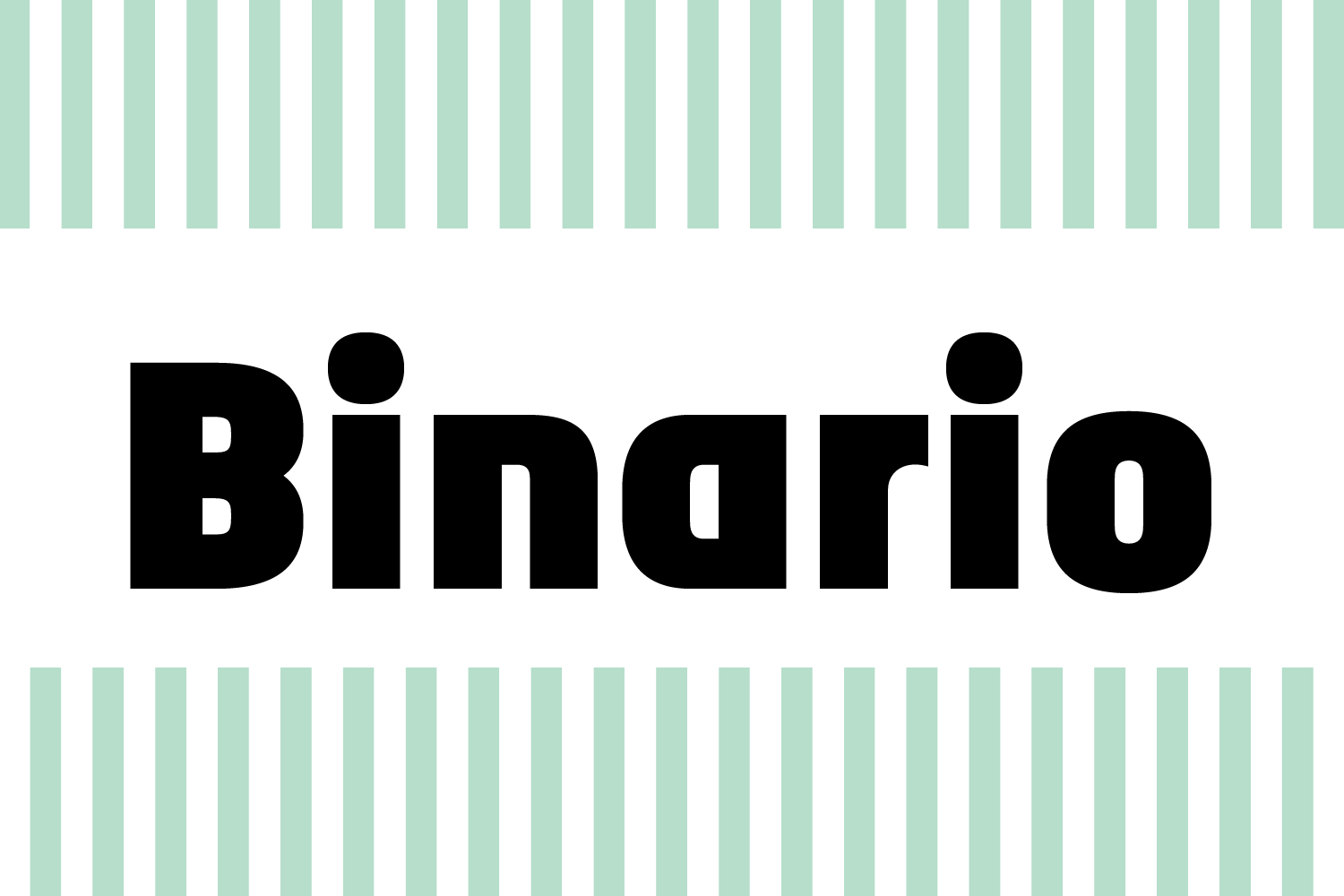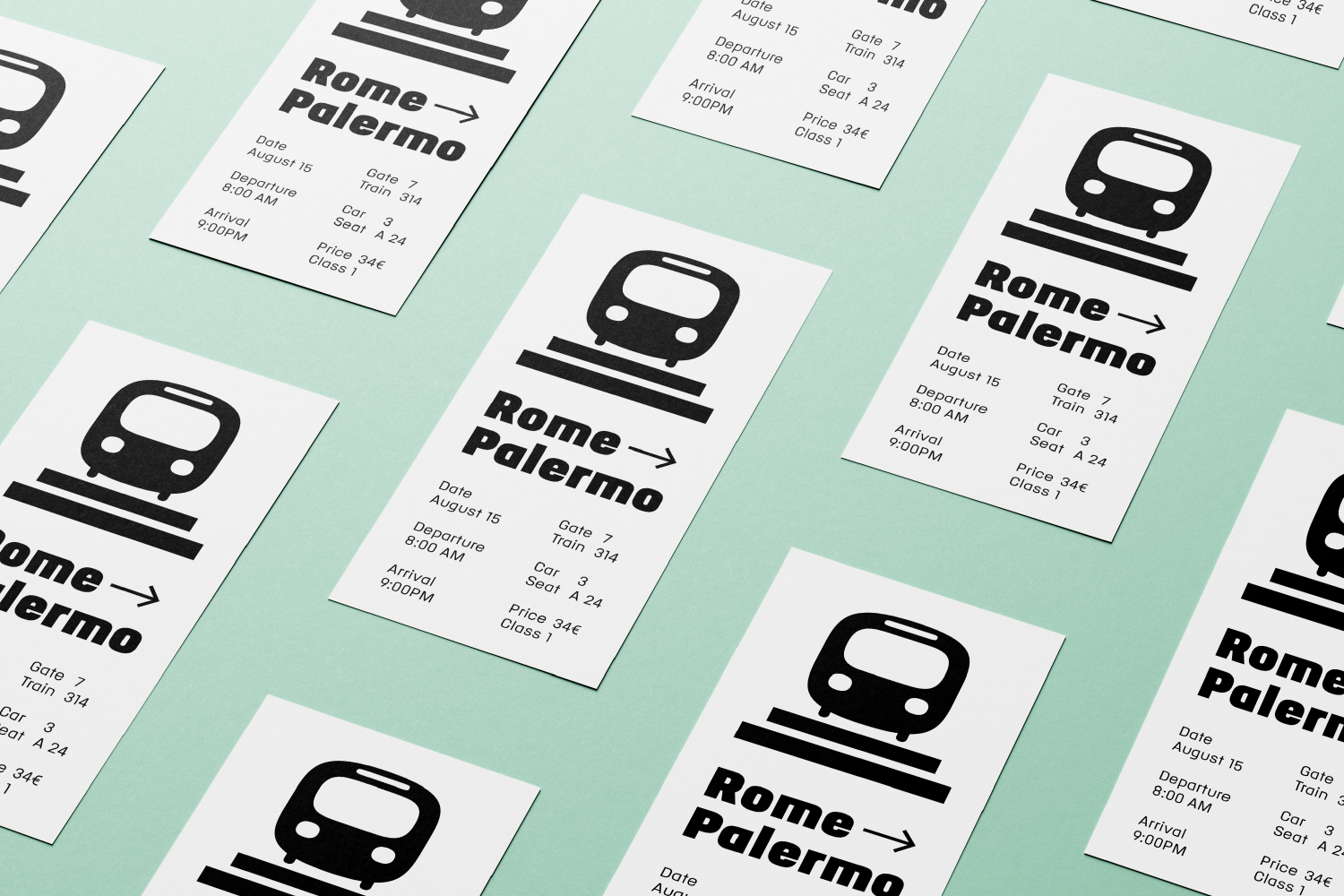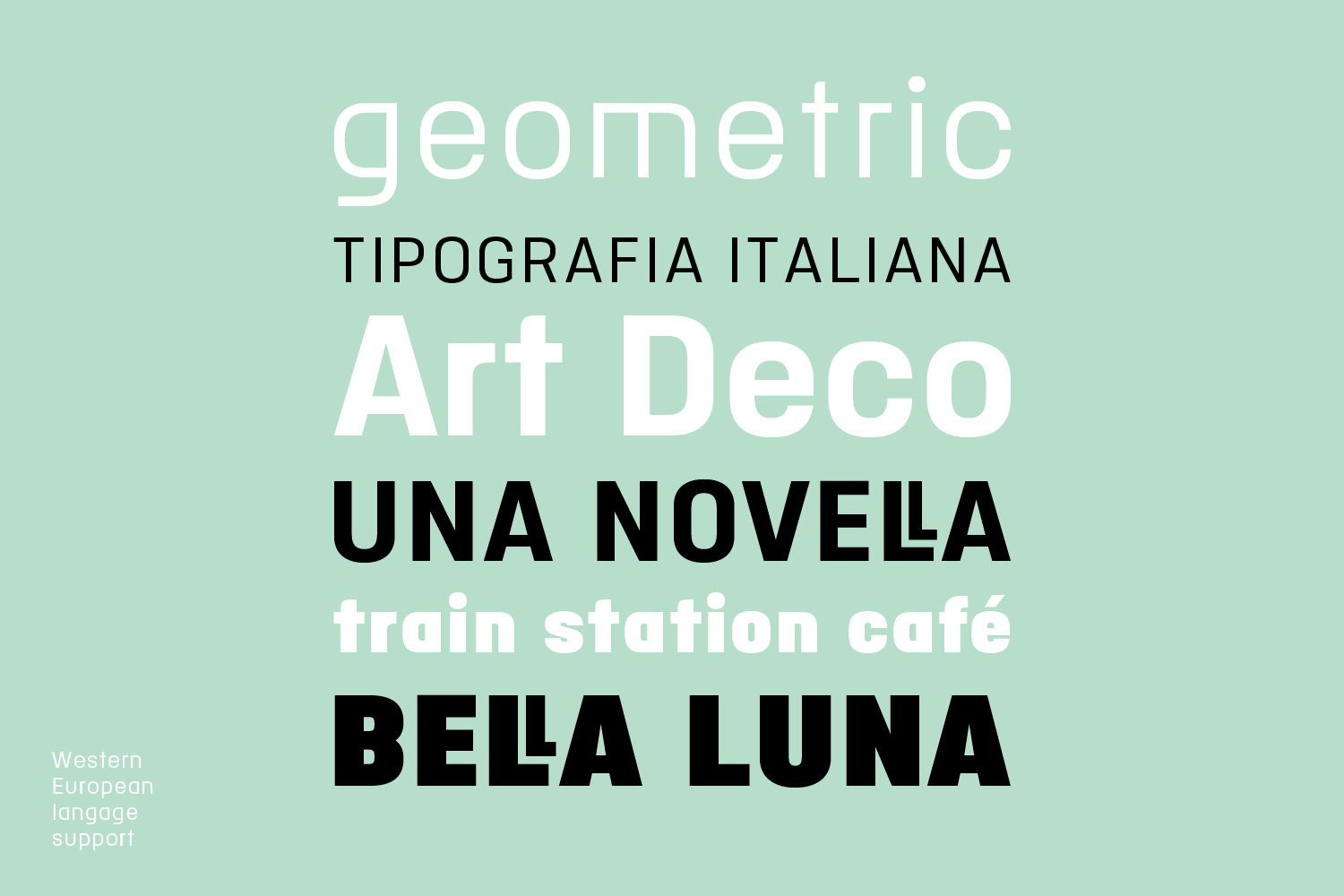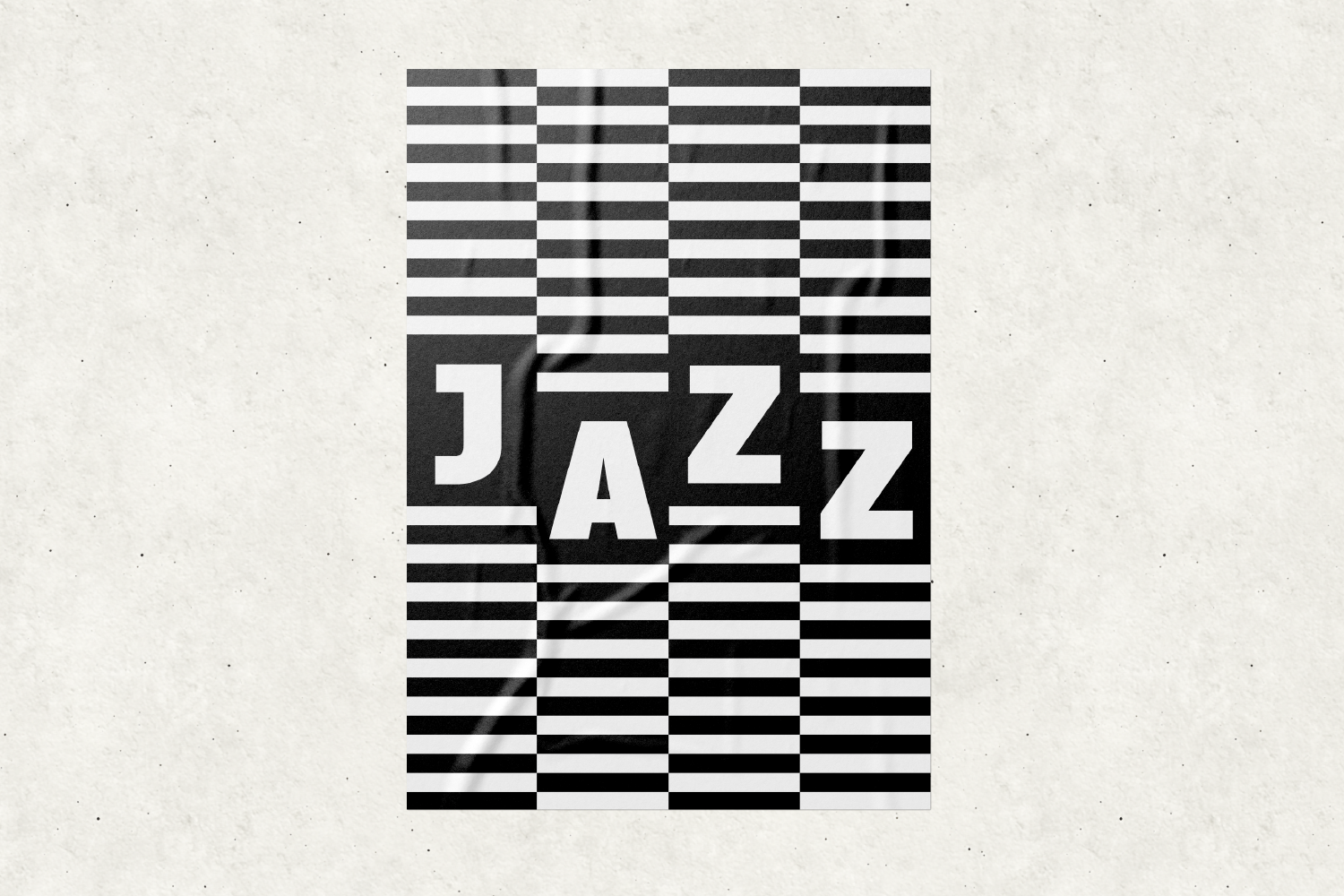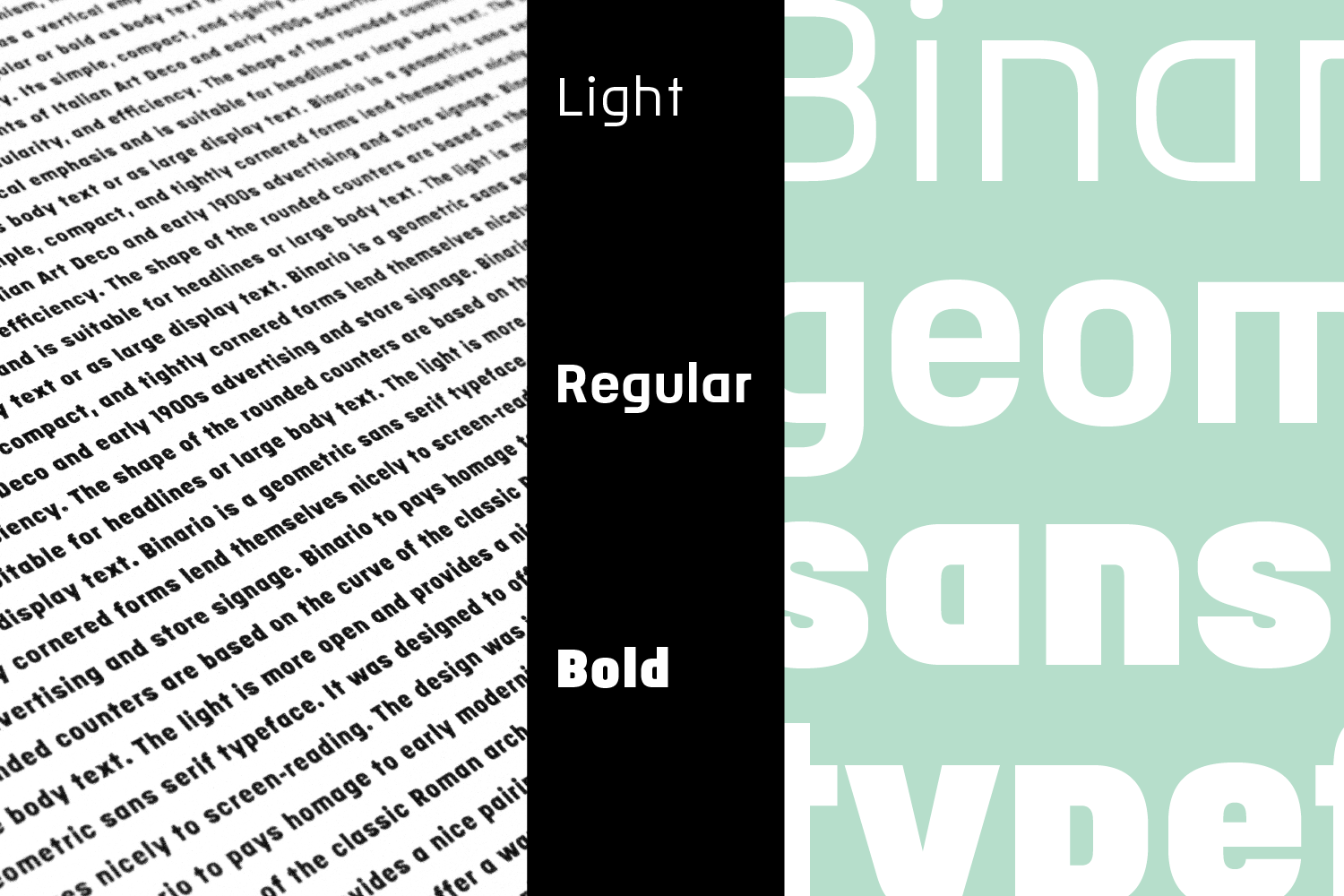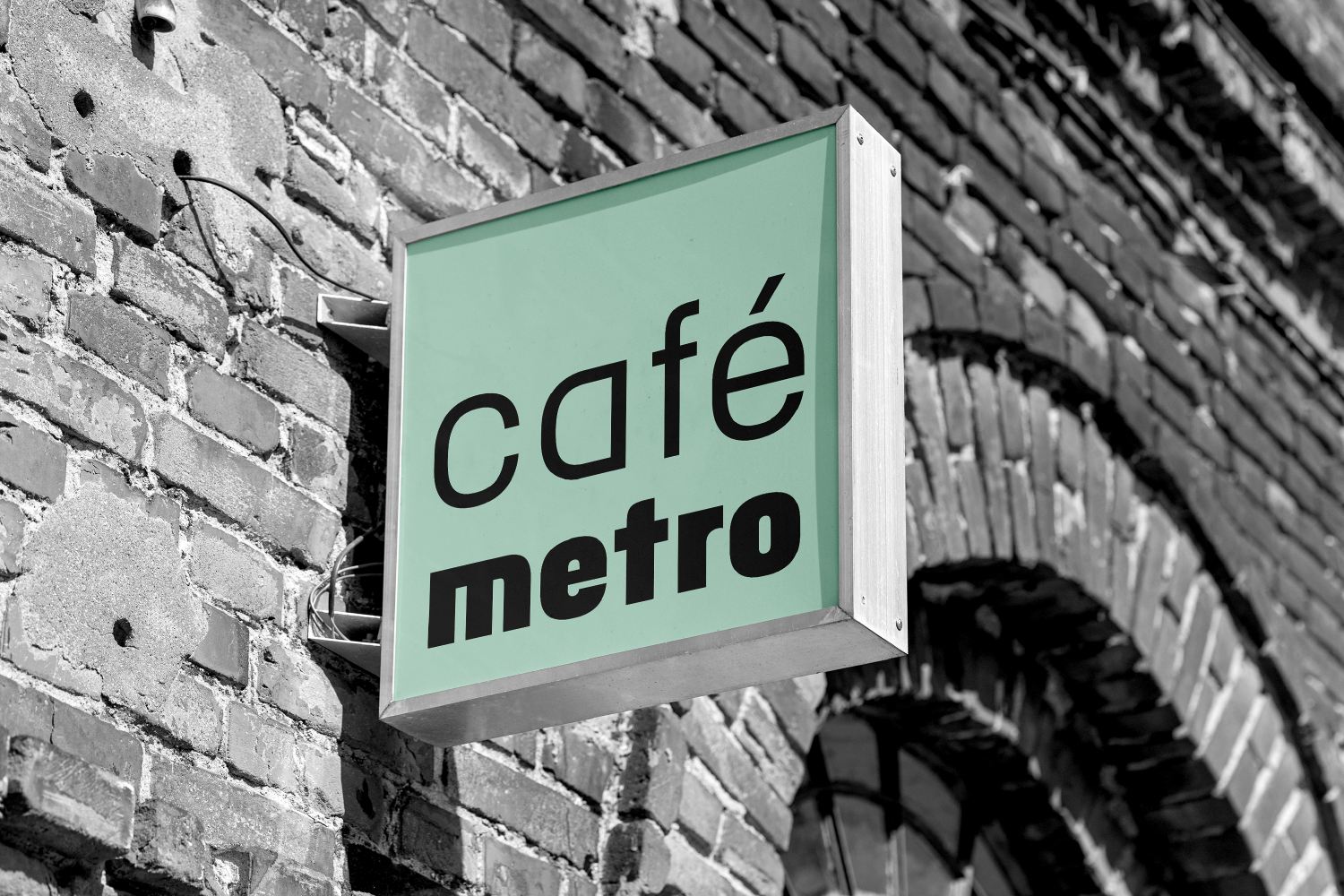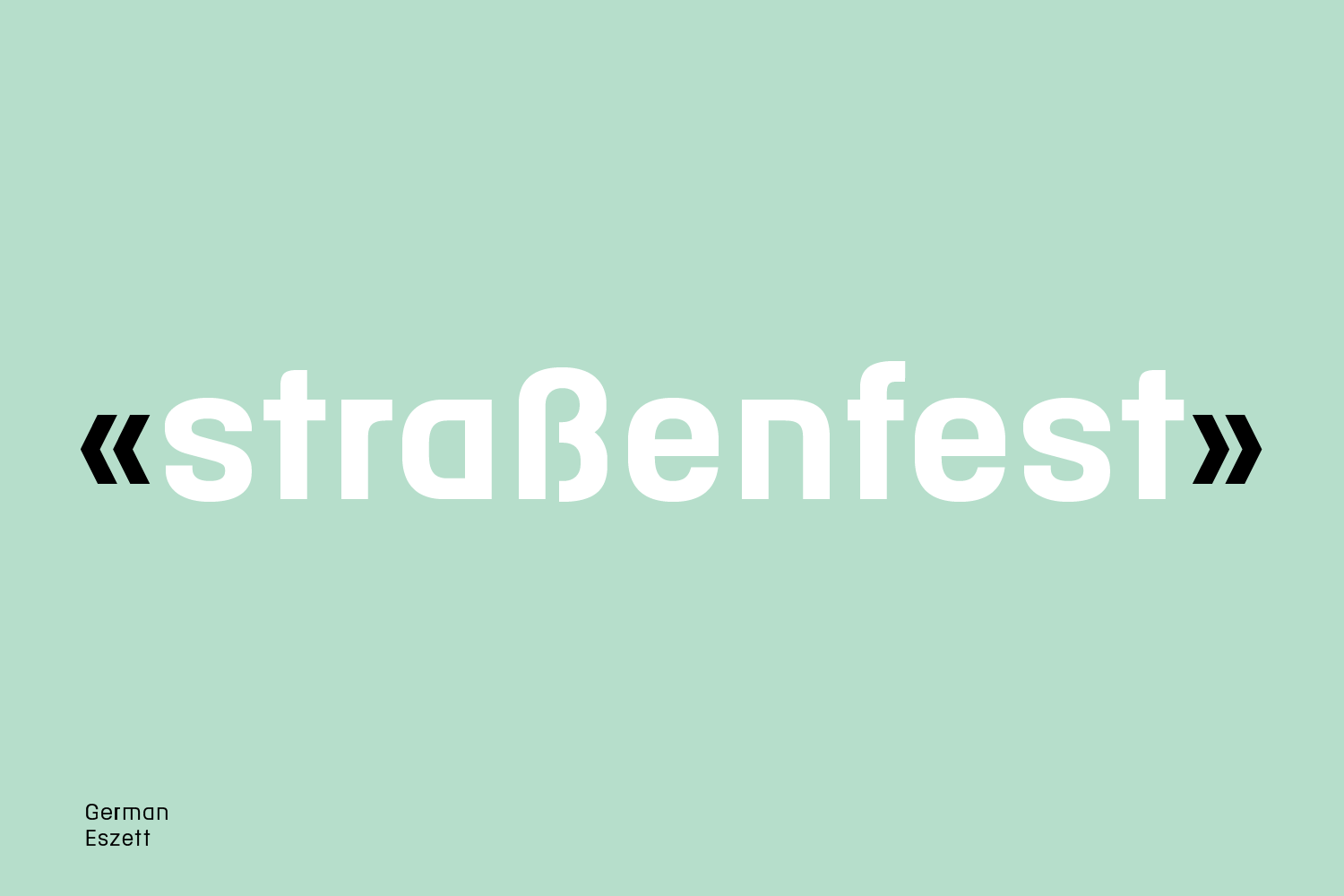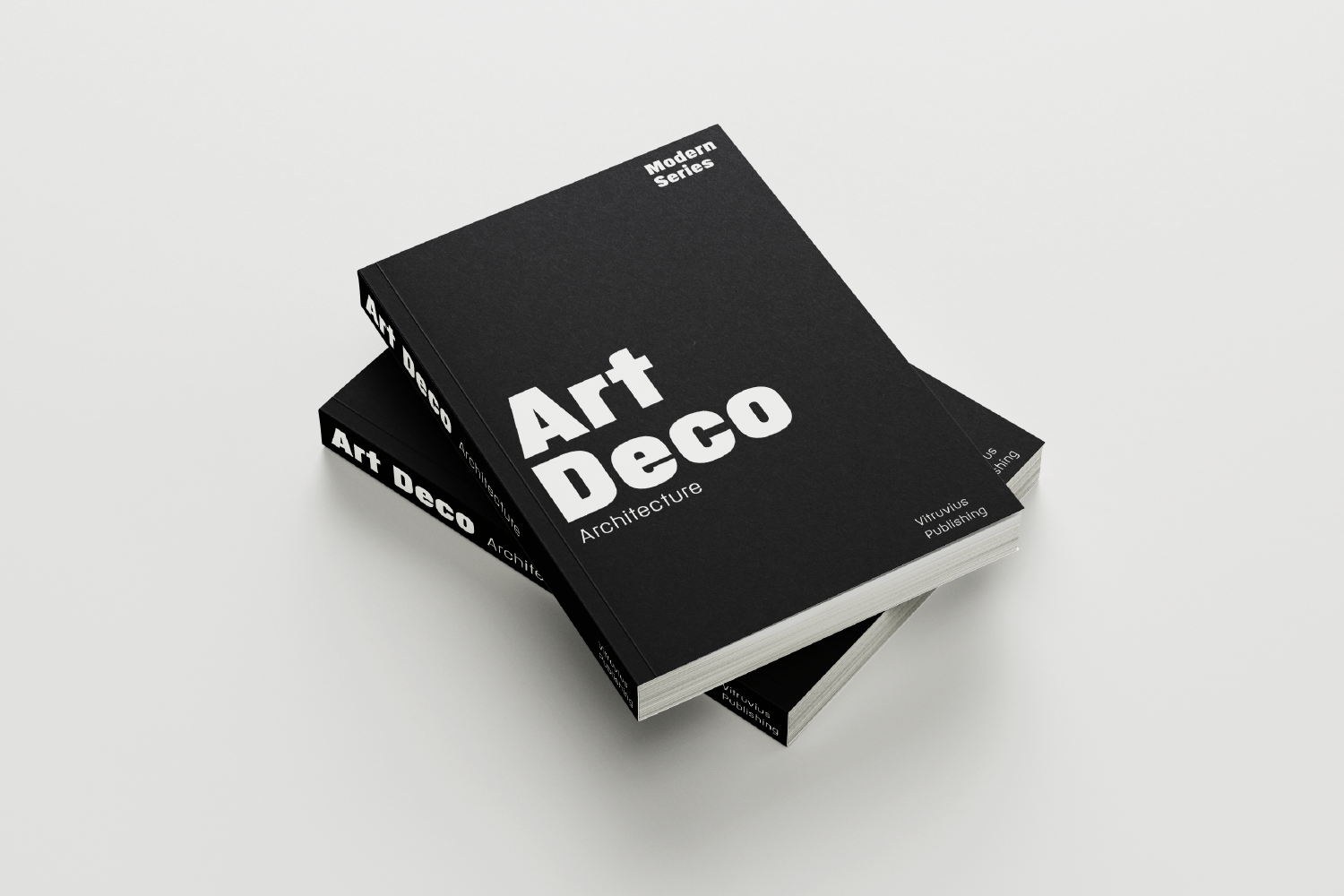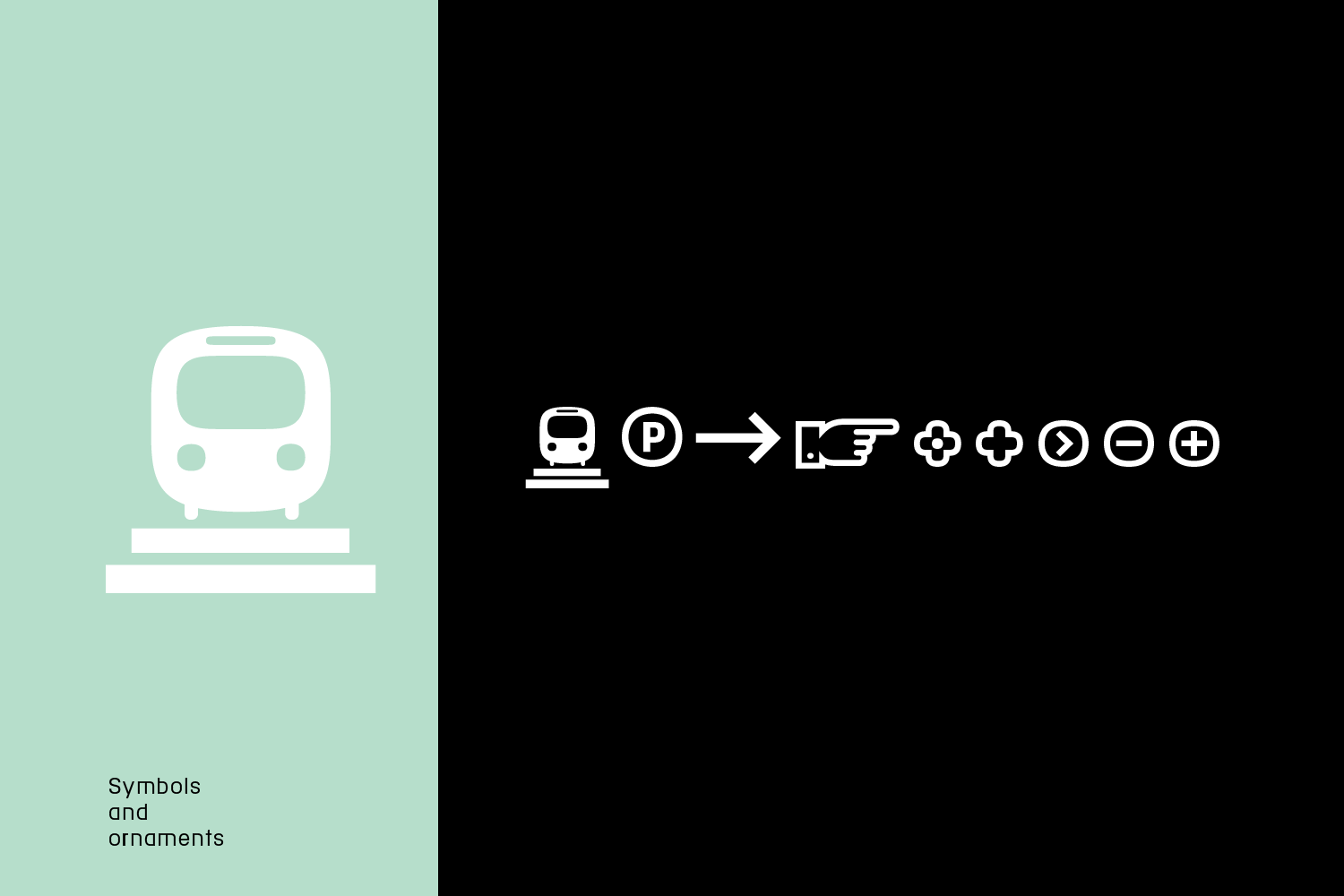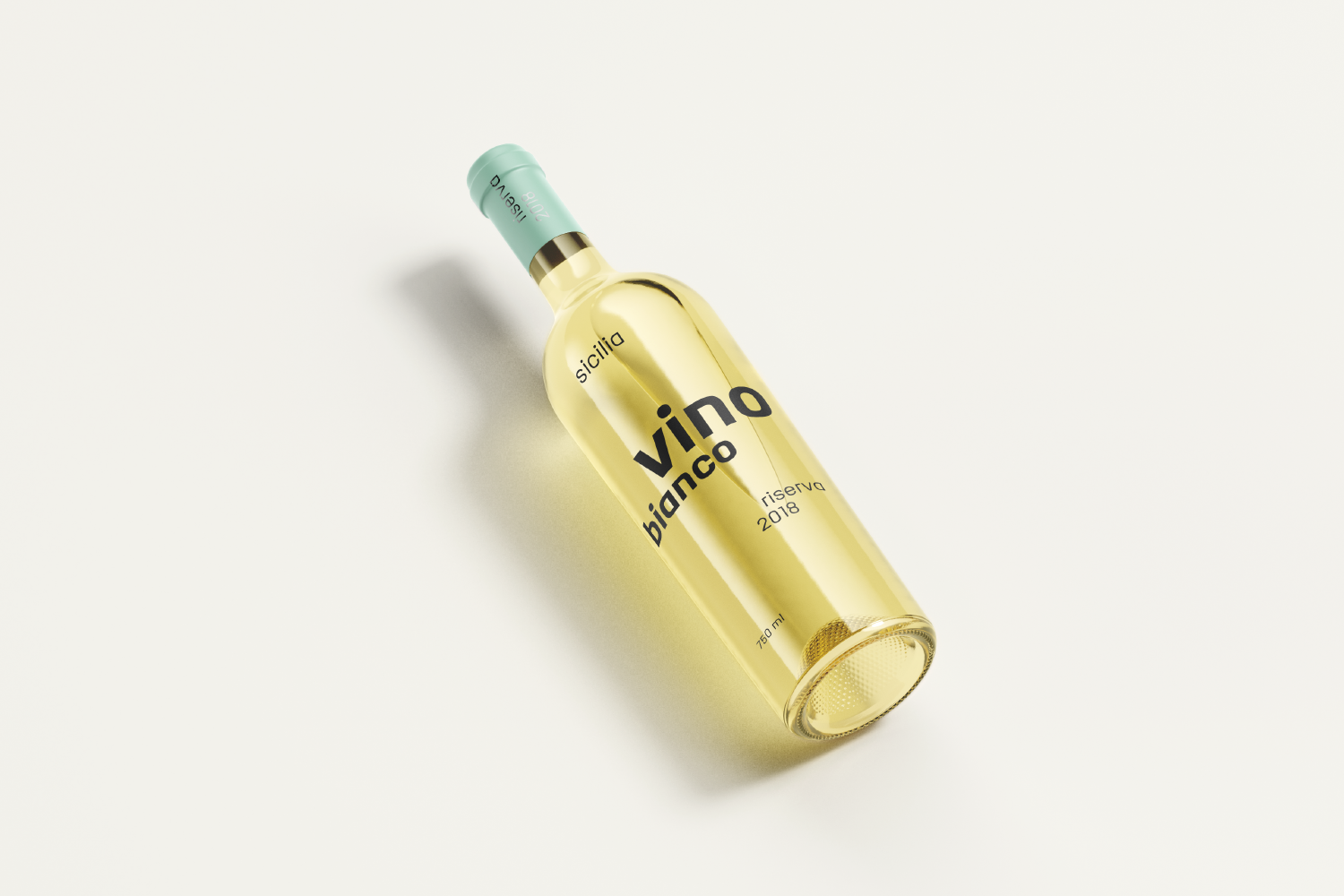
All three font weights are versatile and easy to read at any size. It is simple to create organized content because each weight is distinct. The light weight is an excellent body text with generous interior space. The regular weight is a confident body or heading text. The bold weight is superb for impactful headlines. The glyphs are made with tightly rounded forms. This makes reading easy on screens or prints that are low resolution.
Binario supports all Western European languages and comes with 265 glyphs. It offers OpenType features, such as standard ligatures (fl and fi) and a discretionary ligature for LL (useful for Italian and Spanish). Several symbols are also included; train, pointing finger, arrow right, flowers, plus in circle, minus in circle, right-facing arrow head in circle, and a sound recording copyright.
Looking closely at the letters you will see many characteristics that make this font unique. For example, it has a simple one-story a, the tail of the Q is a flat horizontal stroke, the J has a stroke at the top of the stem to prevent irregular letterspacing, the ø has a hollow interior, and the r has a horizontal top hook (ear).
The geometric and modular characteristics of Binario subtly reference the Art Deco and early modernist periods. Designers with an intention to reference these eras will have an easy time with Binario. However, it will also not overpower content. Designers who need a versatile font will find it works well for many different types of communication needs.
Binario was designed in Siena, Italy taking some inspiration from train stations and shop signage. The name Binario means train platform in Italian. Other aspects that informed the design of this font are modularity and efficiency. The interior rounded forms of the letters (counterforms) are based on shape of the Roman arch.